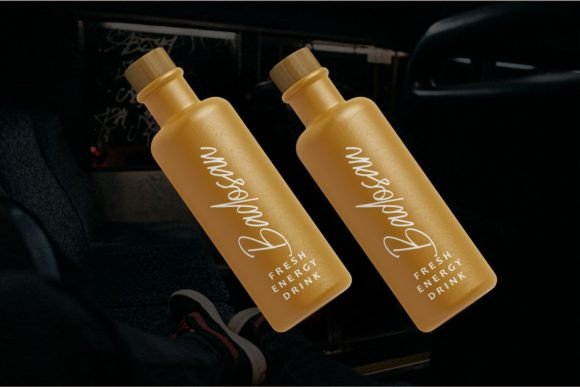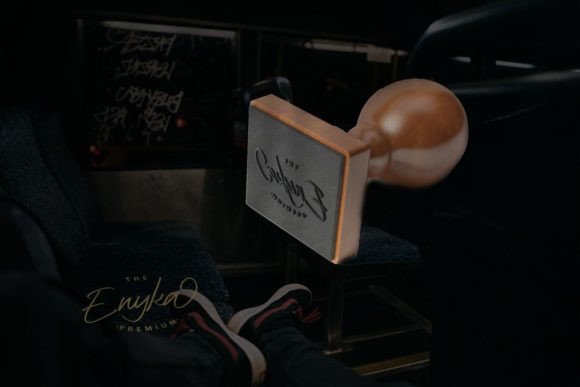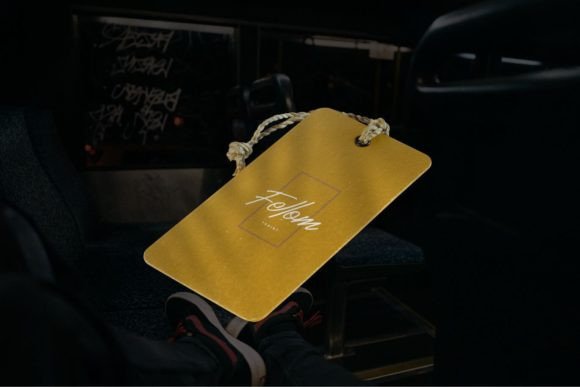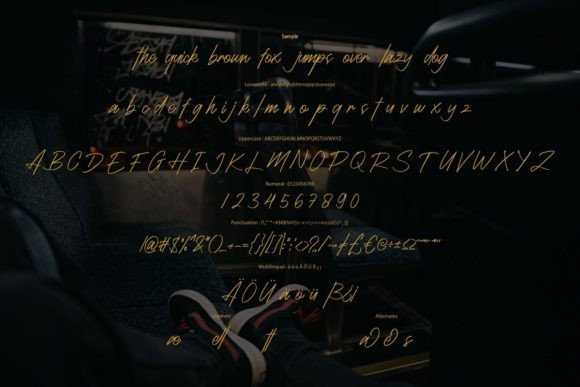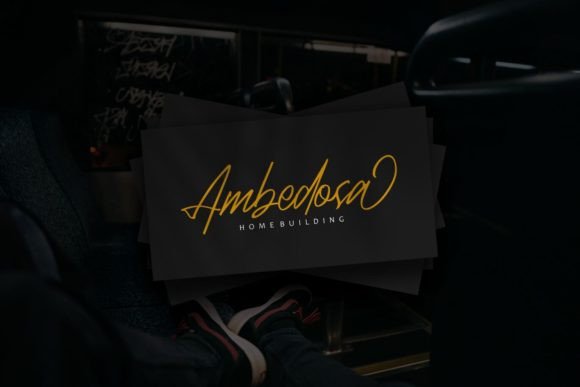
Hadellica Font: Elevate Your Designs with Modern Elegance
In the world of typography, fonts play a crucial role in conveying the tone and personality of a design. For designers and crafters looking to add a touch of modern sophistication to their projects, Hadellica Font is an excellent choice. This modern script font brings a contemporary flair to the table, making it perfect for a wide range of applications, from invitations and logos to branding and advertising.
The Characteristics of Hadellica Font
Hadellica Font is characterized by its stylish and fluid strokes, which give it a unique and elegant appearance. The font’s modern design makes it stand out from more traditional script fonts, offering a fresh and trendy look that’s sure to capture attention. Whether you’re working on a wedding invitation, a logo, or a marketing campaign, Hadellica’s versatility and sophistication make it an excellent choice.
Key Features of Hadellica Font
- Modern Script Design: Hadellica boasts a contemporary script design that adds a touch of elegance to any project.
- Fluid Strokes: The font’s fluid strokes give it a dynamic and stylish appearance, perfect for making a statement.
- Versatility: Hadellica is suitable for a wide range of projects, including invitations, logos, branding, and more.
- Easy to Read: Despite its elegant design, Hadellica remains easy to read, making it practical for both digital and print applications.
Uses of Hadellica Font
Hadellica Font’s versatility makes it suitable for various design projects. Here are some of the top uses for this modern script font:
- Wedding Invitations: Add a touch of modern elegance to your wedding invitations and save-the-date cards.
- Logos and Branding: Use Hadellica to create a sophisticated and memorable logo for your business or brand.
- Marketing Materials: Elevate your marketing campaigns with Hadellica’s stylish and contemporary design.
- Social Media Graphics: Make your social media posts stand out with Hadellica’s trendy and eye-catching font.
- Packaging Design: Add a touch of modern sophistication to your product packaging with Hadellica.
Why Choose Hadellica Font?
With so many fonts available, why choose Hadellica? Here are a few compelling reasons:
- Unique Design: Hadellica’s modern script design sets it apart from more traditional fonts, giving your projects a fresh and contemporary look.
- High Readability: Despite its elegant design, Hadellica remains easy to read, making it suitable for both digital and print applications.
- Versatility: Hadellica can be used for a wide range of projects, making it a valuable addition to any designer’s font collection.
- Trendy and Timeless: Hadellica’s modern design ensures it will remain stylish and relevant for years to come.
How to Use Hadellica Font Effectively
To get the most out of Hadellica Font, consider the following tips:
- Pair with Complementary Fonts: Combine Hadellica with clean sans-serif fonts for a balanced and harmonious look.
- Experiment with Sizes: Use Hadellica in various sizes to create visual hierarchy and emphasize key information.
- Play with Colors: Hadellica looks great in a range of colors, from bold and bright to soft and pastel.
- Use for Headlines and Titles: Hadellica’s stylish design makes it perfect for headlines and titles, adding a touch of modern elegance to your projects.
Hadellica Font is a versatile and stylish modern script font that’s perfect for designers and crafters looking to add a touch of contemporary elegance to their projects. With its fluid strokes, elegant design, and high readability, Hadellica is suitable for a wide range of applications, from invitations and logos to marketing materials and packaging design. Upgrade your typography with Hadellica and make your text stand out in a sleek and fashionable way.